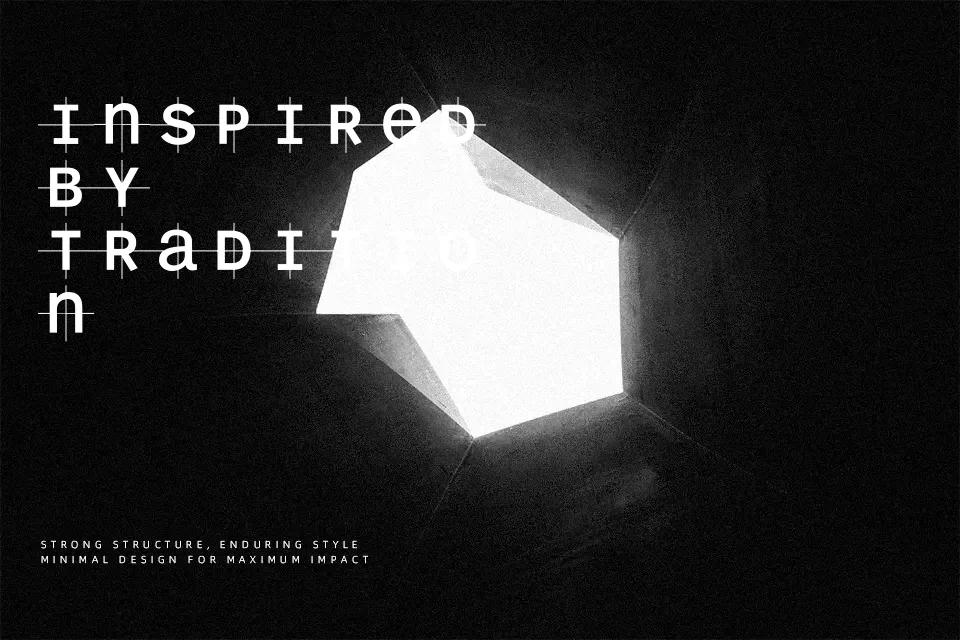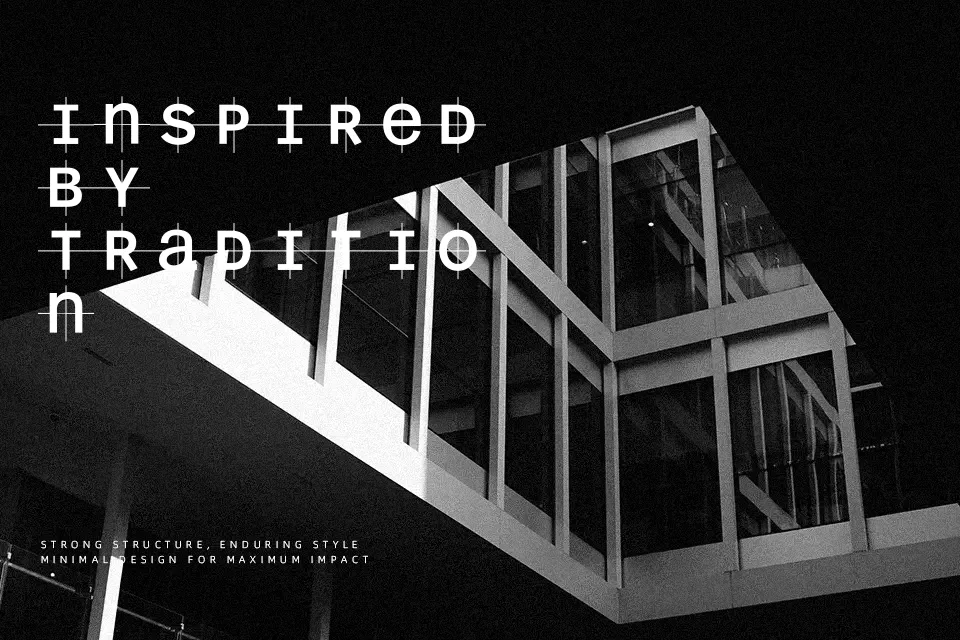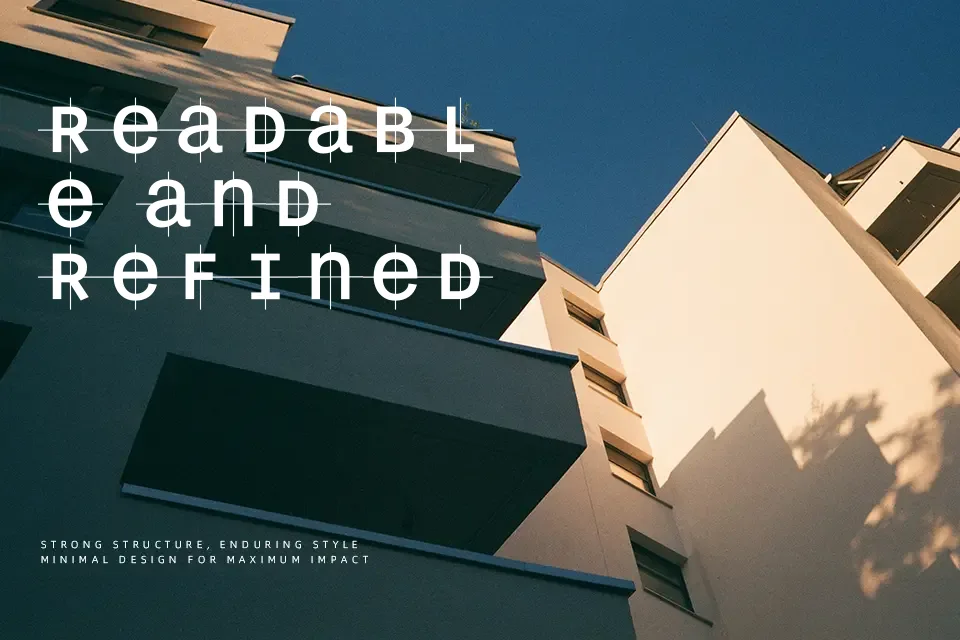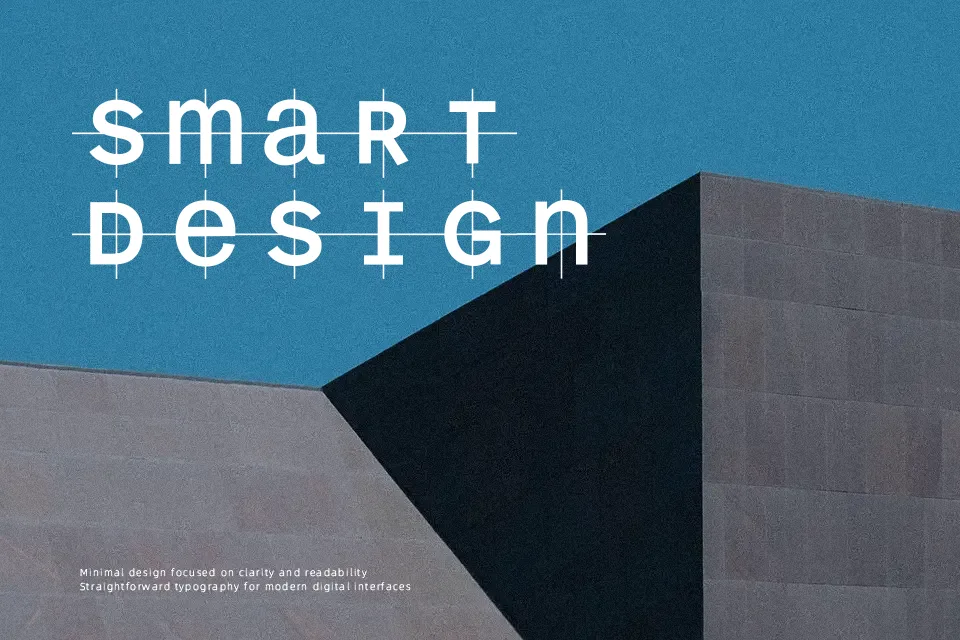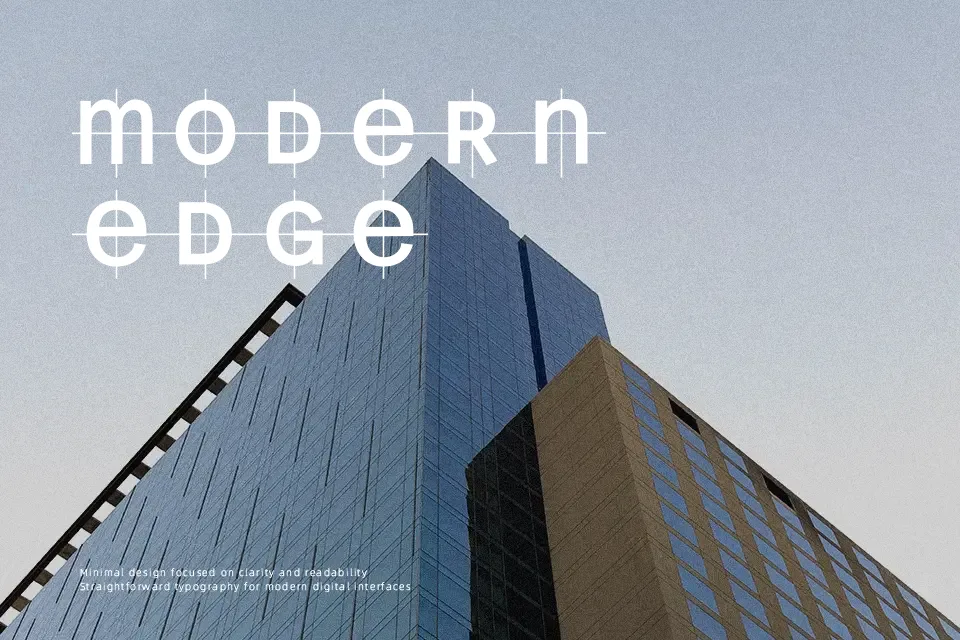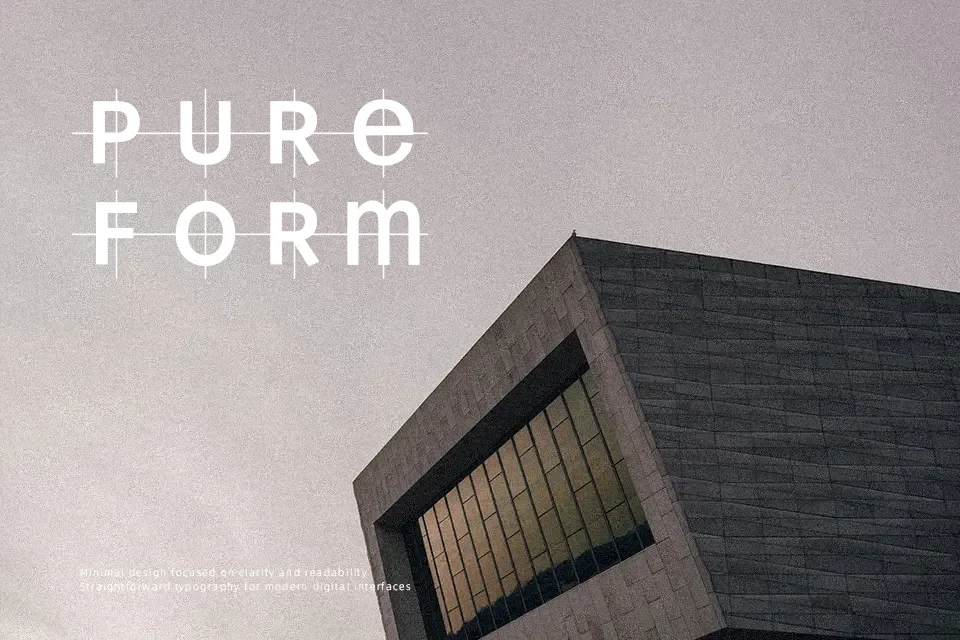
KL1MonoCase Font
Designed by Manfred Klein
KL1MonoCase features uniform character widths, straight strokes, and tight, predictable spacing that echo classic coding environments. The letterforms lean toward a geometric construction with minimal contrast, giving it a precise and mechanical tone. It performs well in terminal-style designs, developer portfolios, or tech branding where clarity and rhythm matter. However, its rigid structure can feel monotonous in long passages, making extended reading less comfortable. It’s most effective when used in short lines or headings where its grid-like consistency becomes a visual asset rather than a limitation.
– coding-themed posters
– developer portfolio headers
– tech branding visuals
– UI wireframe mockups
– long paragraph text
– expressive or emotional designs
– luxury branding materials
– print-heavy editorial layouts
Perfect for logo, poster, and ui design, with a clean and geometric style.